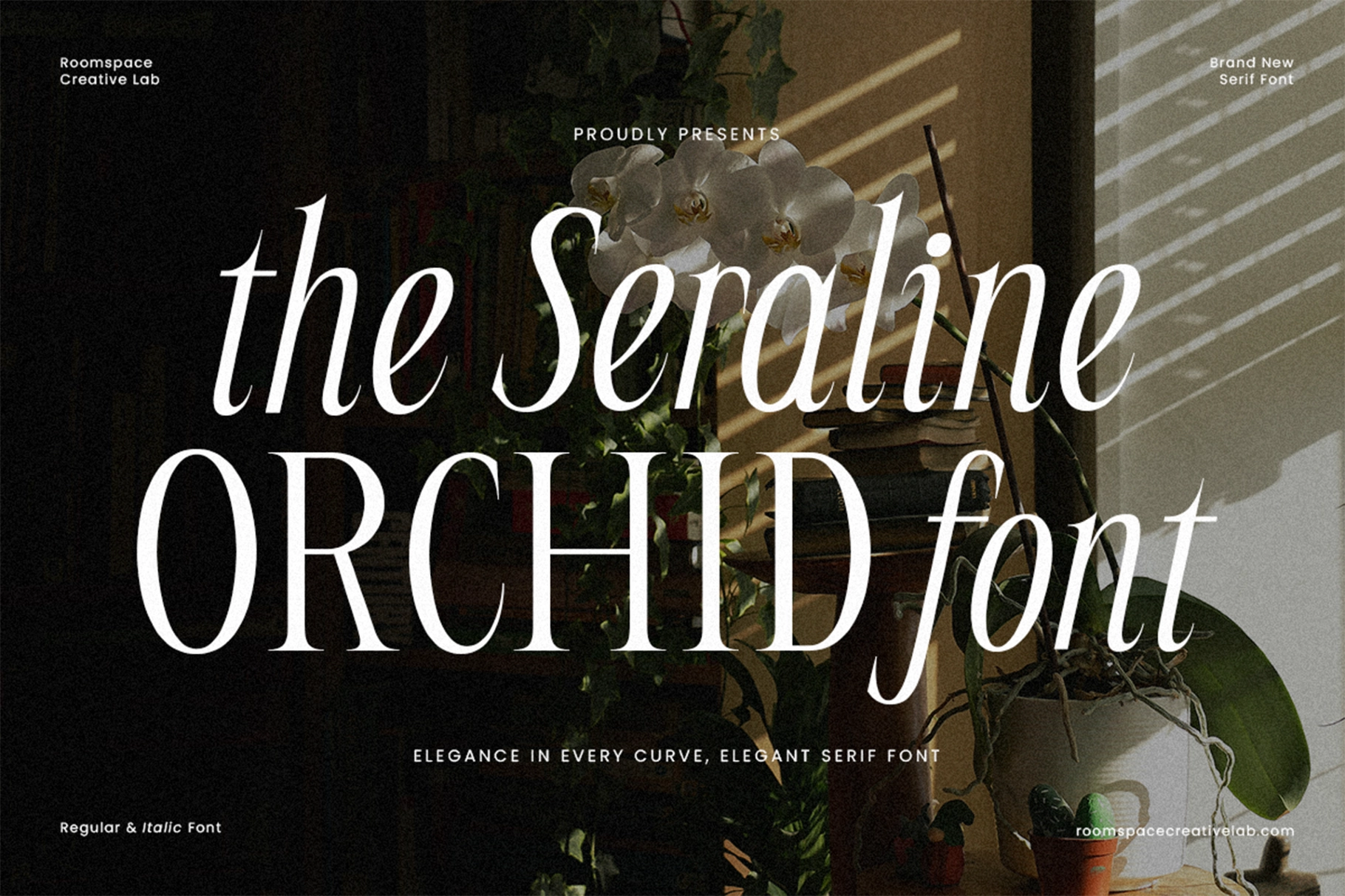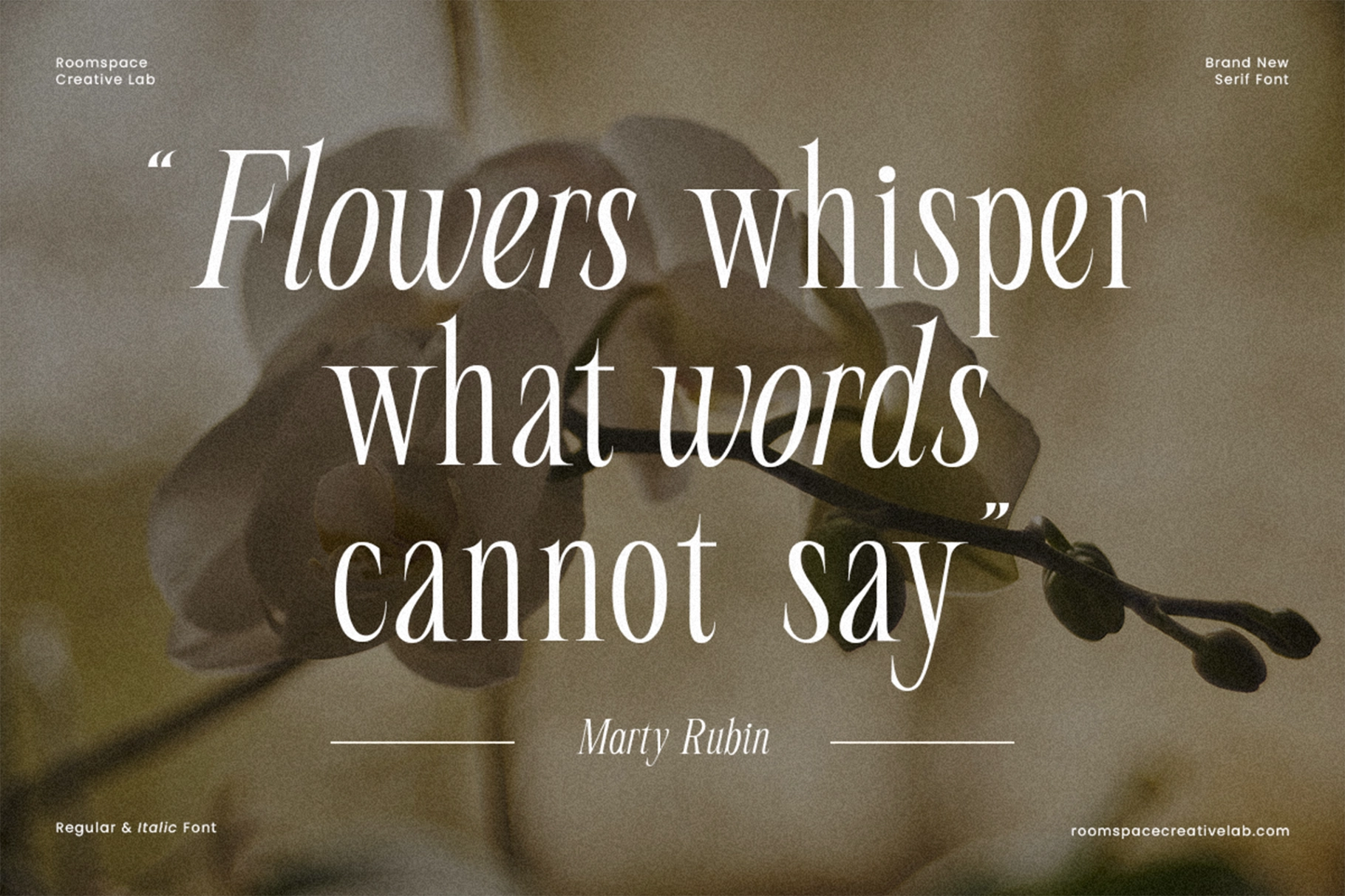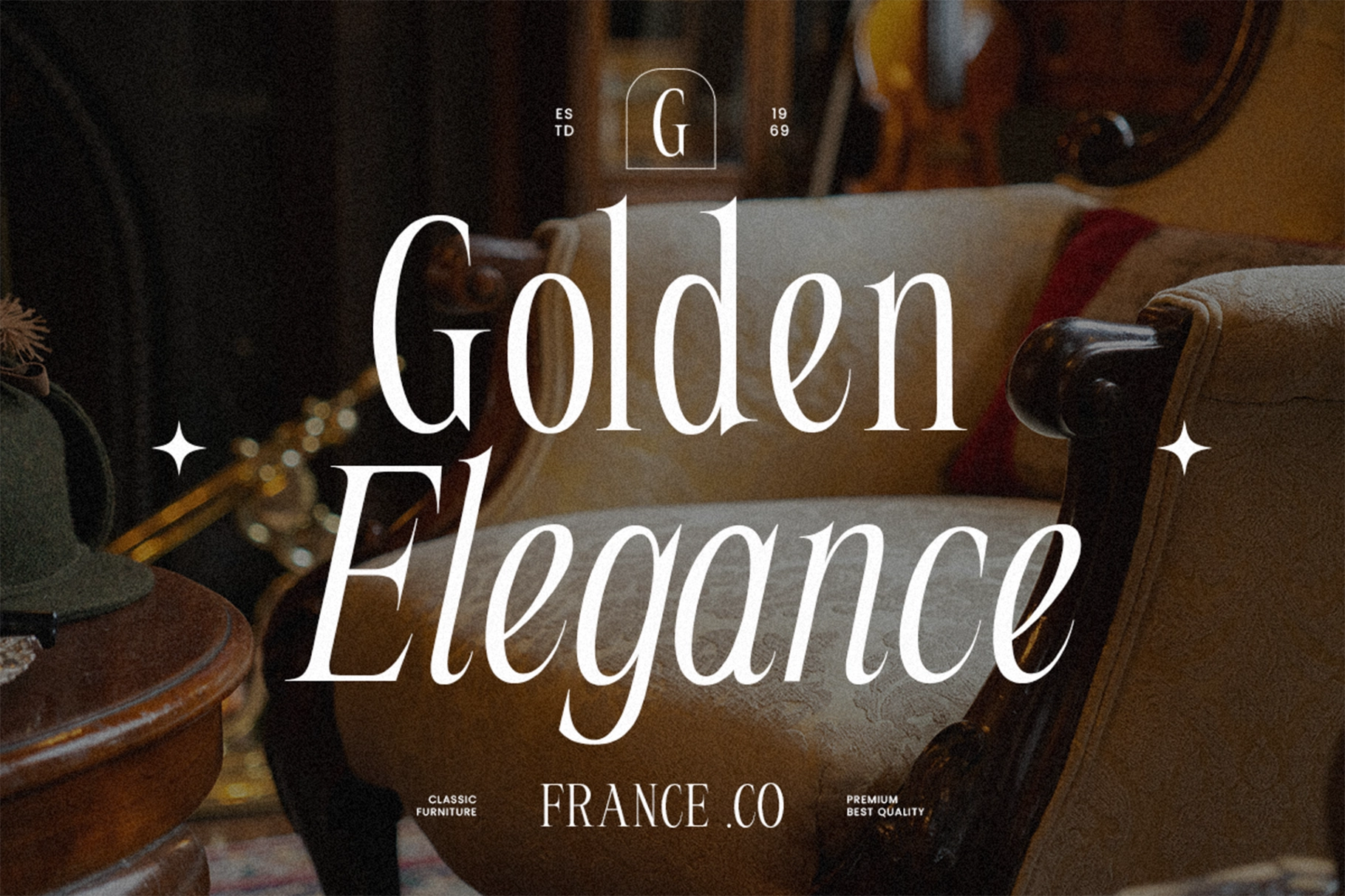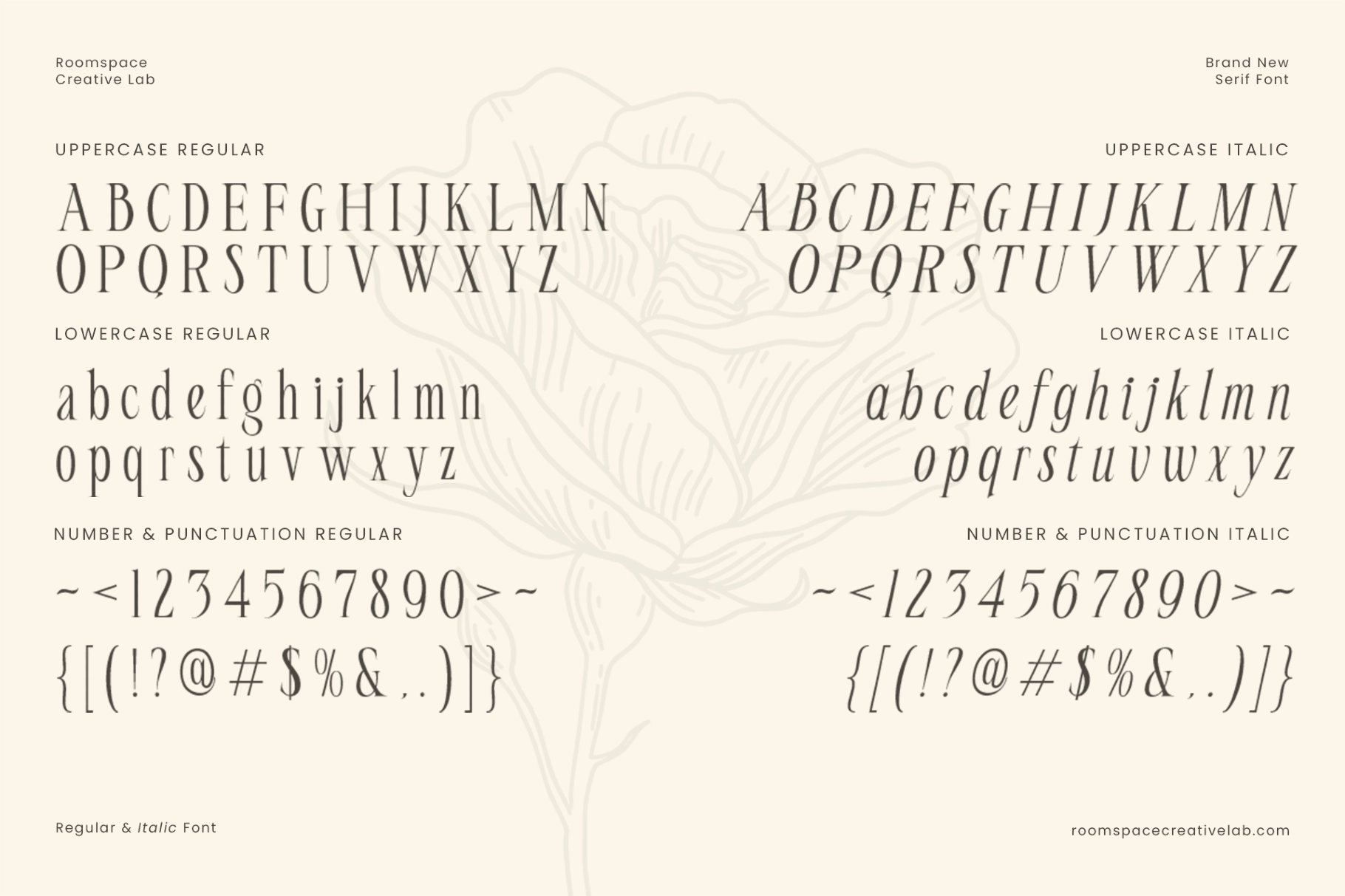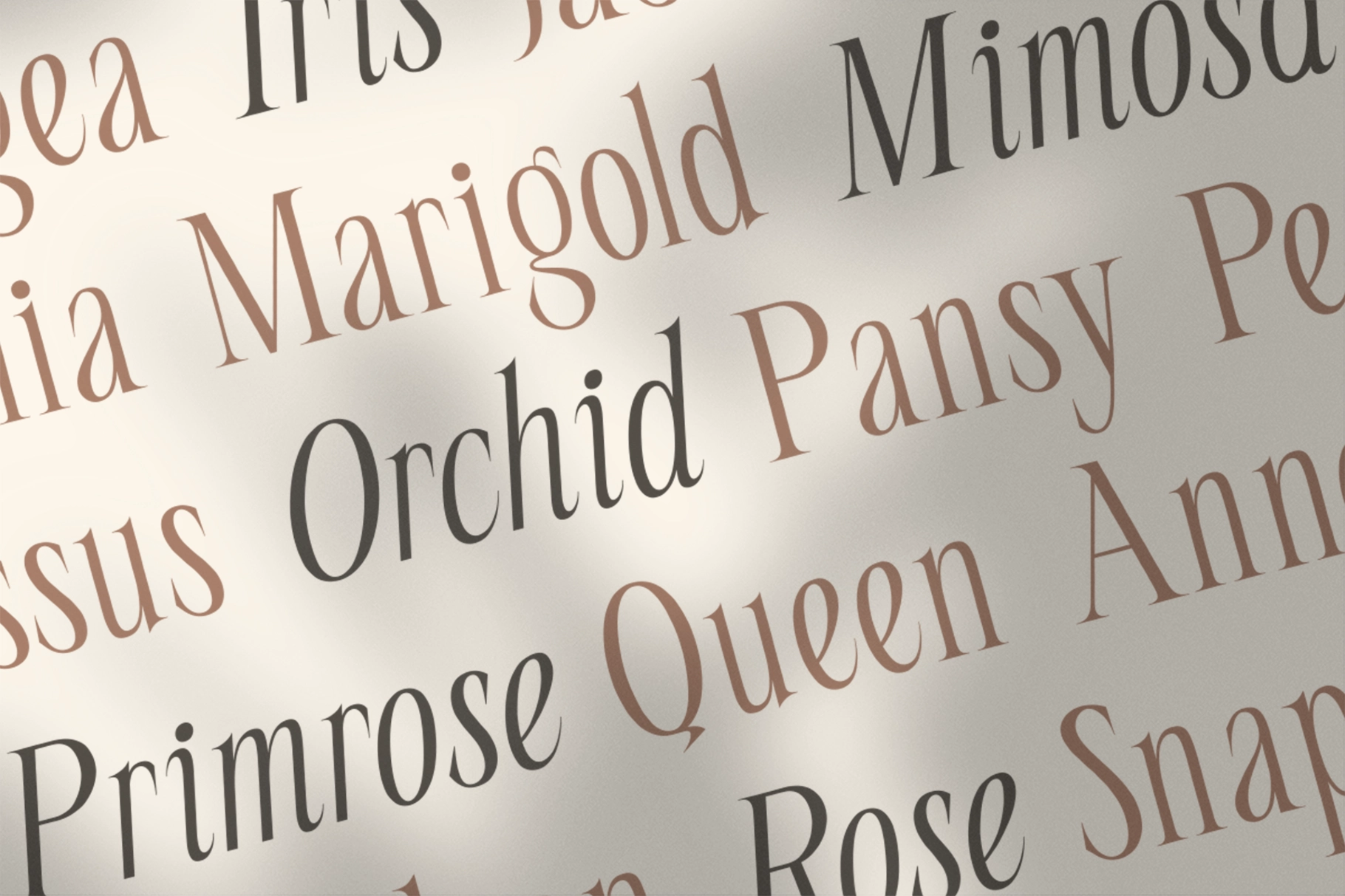
Seraline Orchid – Modern Elegant Serif Font
This elegant serif has slim vertical rhythm, high contrast, soft curves, and graceful italic forms that bring a refined botanical character to the page. Its letterforms are delicate but clear, with alternates and ligatures adding quiet drama for polished brand work.
Seraline works well for luxury logos, fashion editorials, beauty packaging, wedding stationery, perfume labels, boutique identities, magazine headlines, lookbooks, social media quotes, invitation suites, lifestyle campaigns, and premium product launches. The regular and italic styles create a flexible pairing for titles, captions, and decorative typographic layouts.
• Regular & Italic styles
• Uppercase & lowercase
• Alternates & ligatures